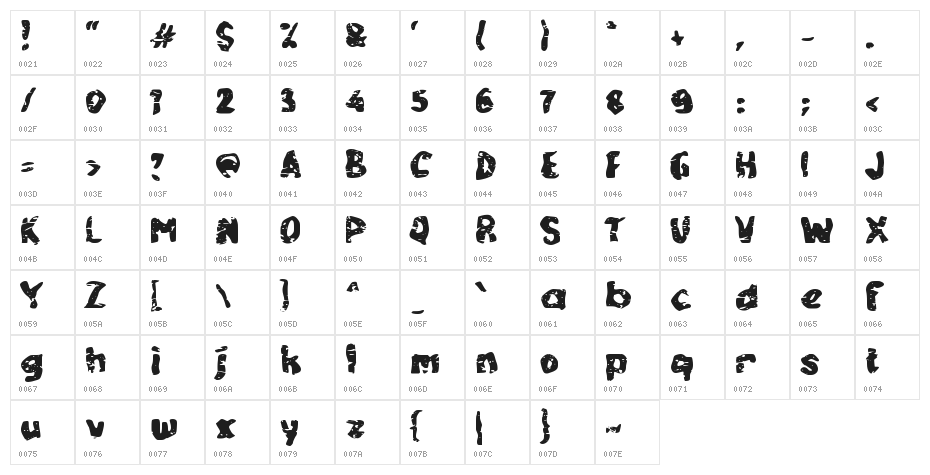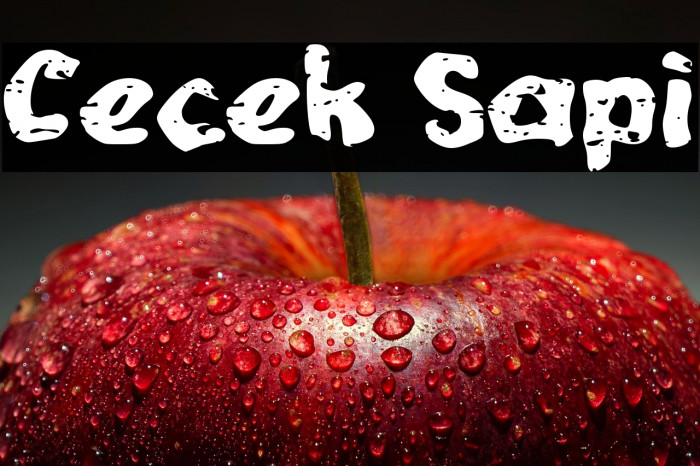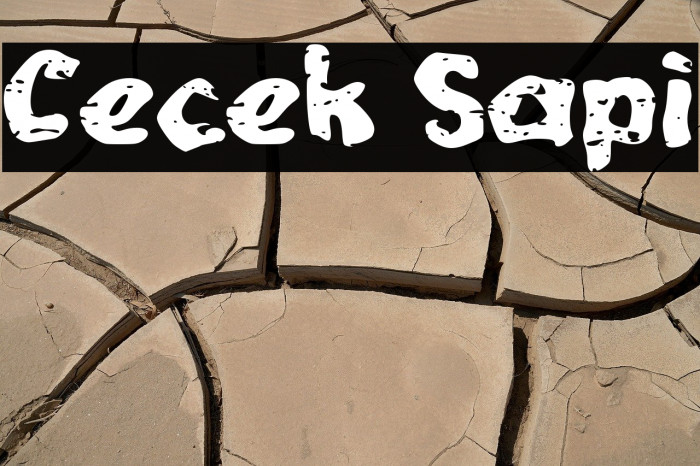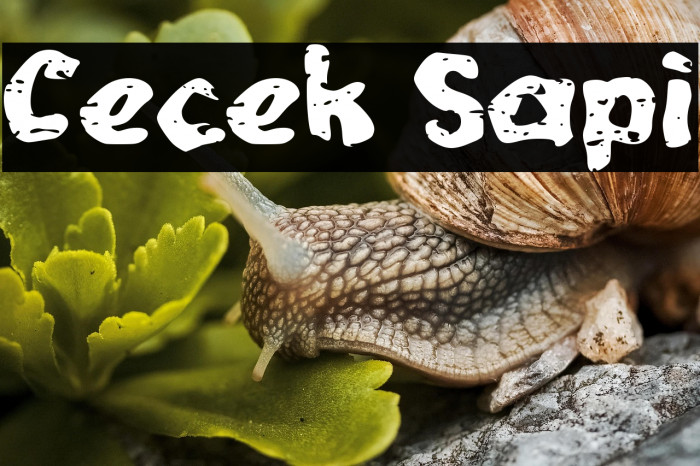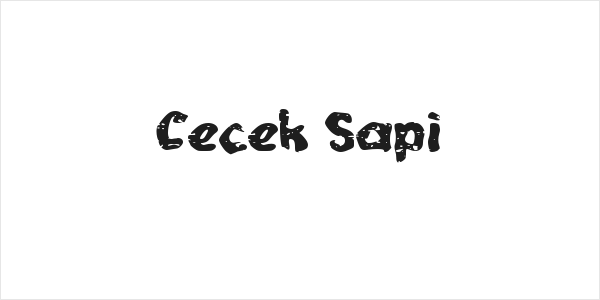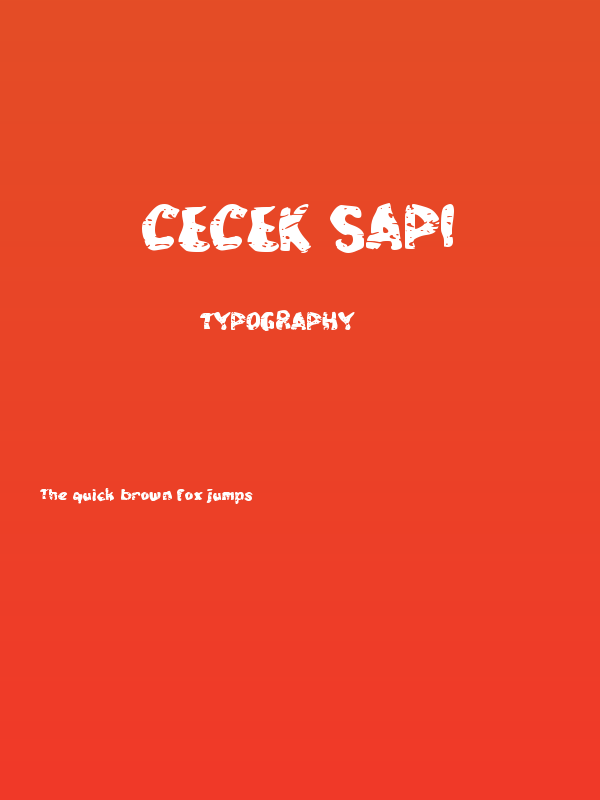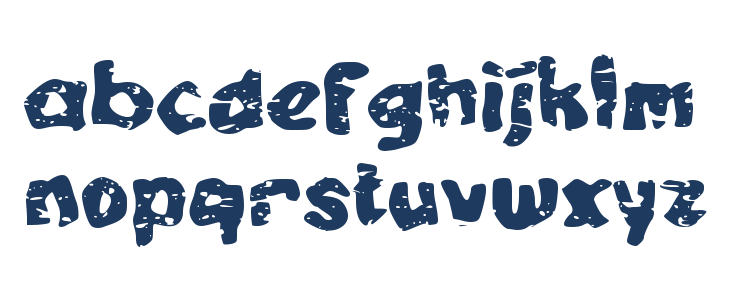
Cecek Sapi Font
Cecek Sapi Description
This font features a bold and distressed style, characterized by its rough, textured appearance that mimics a worn or eroded surface. The letters are thick and heavy, with irregular edges and a playful, almost chaotic design. This creates a sense of movement and energy, making it ideal for eye-catching designs. The uppercase and lowercase letters maintain a consistent style, while the numbers and special characters complement the overall aesthetic. The font's unique look is perfect for projects that require a strong visual impact.
| Proposed Projects | Ideal for posters, album covers, graffiti art, and edgy branding projects. |